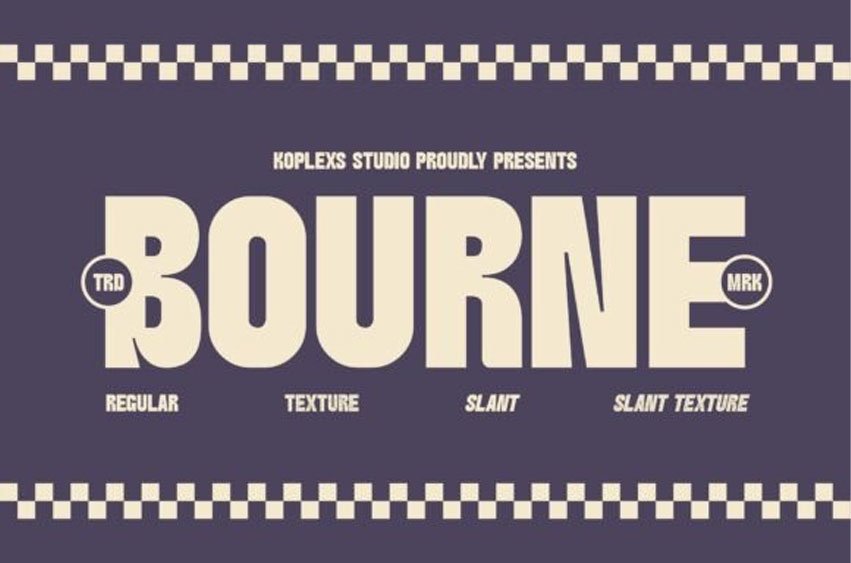
Bourne Font Transform your designs with Bourne Font, a bold retro display typeface crafted to bring a striking vintage aesthetic to your creative projects. Featuring 4 versatile styles—Regular, Texture, Slant, and Slant Texture—Bourne Font is ideal for logos, branding, posters, packaging, merchandise, and more.
With its clean geometric shapes and retro-inspired details, this typeface balances boldness and elegance, making it a perfect fit for both modern and nostalgic design themes. Whether you’re creating marketing materials, social media graphics, or artistic layouts, Bourne Font will help your work stand out and leave a lasting impression.